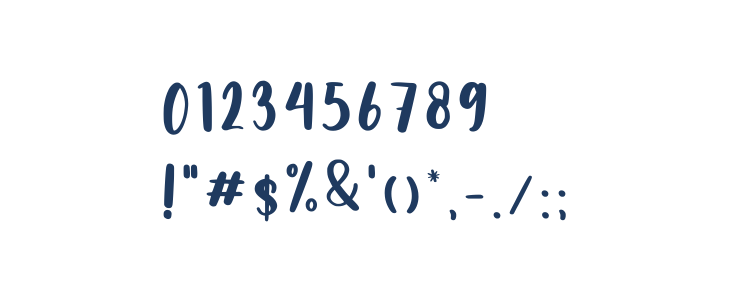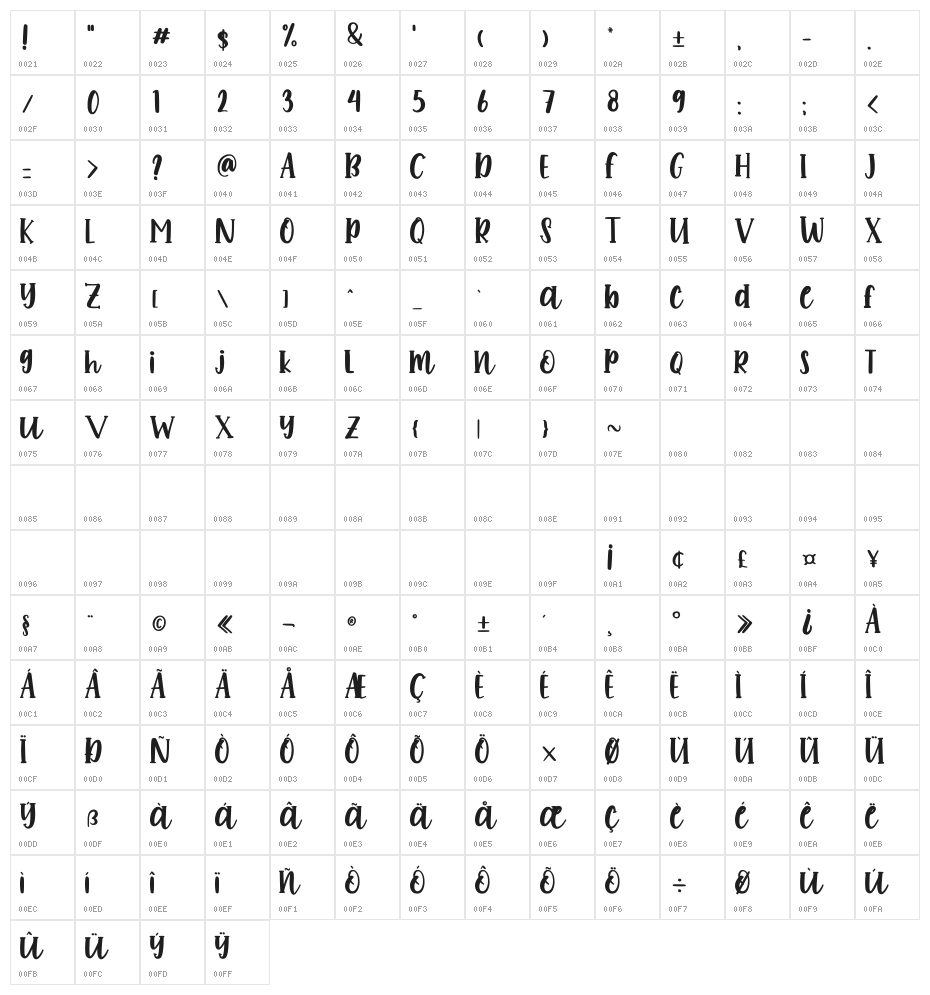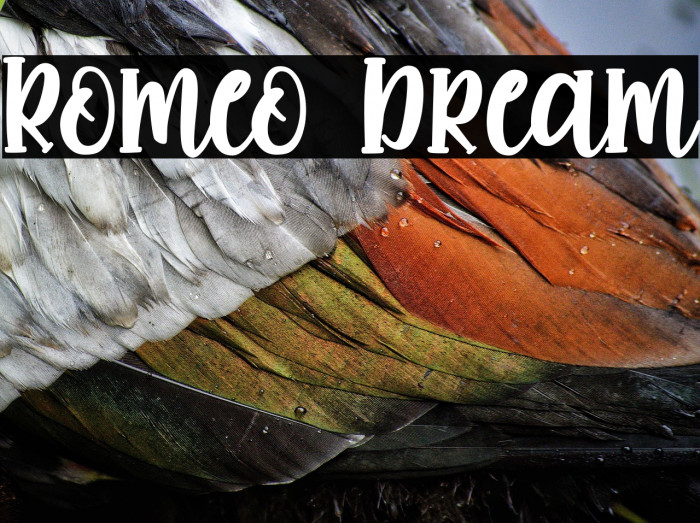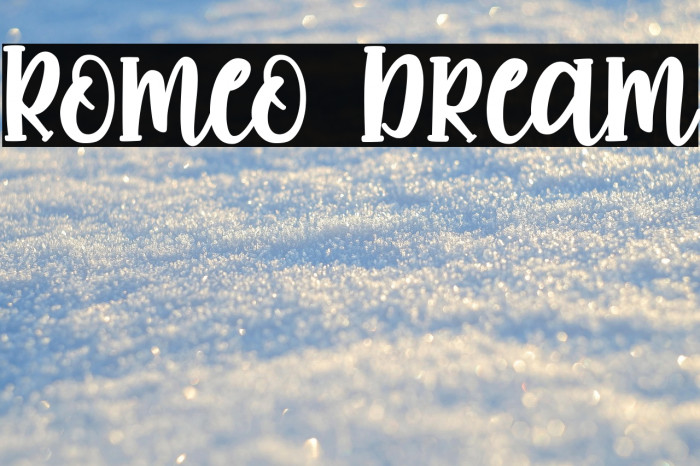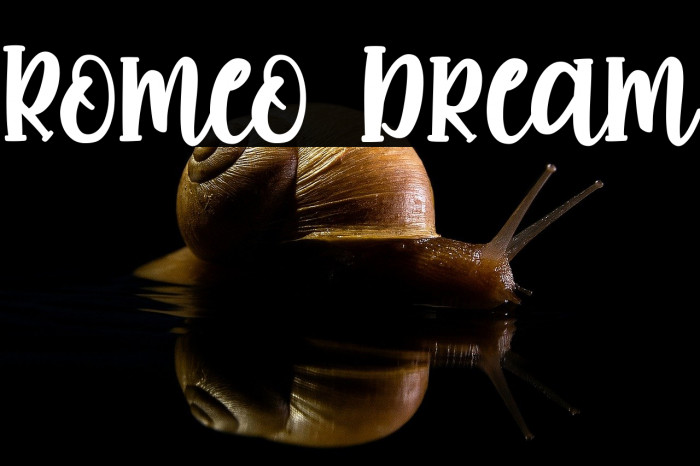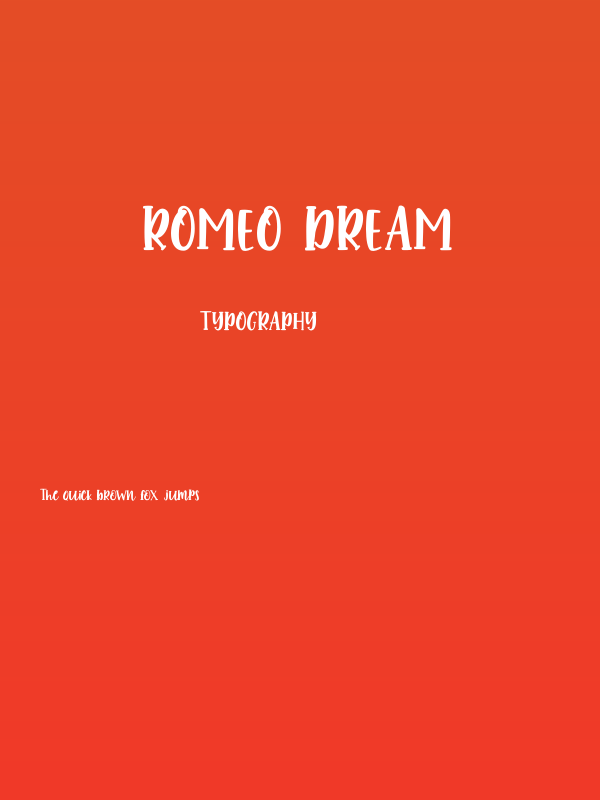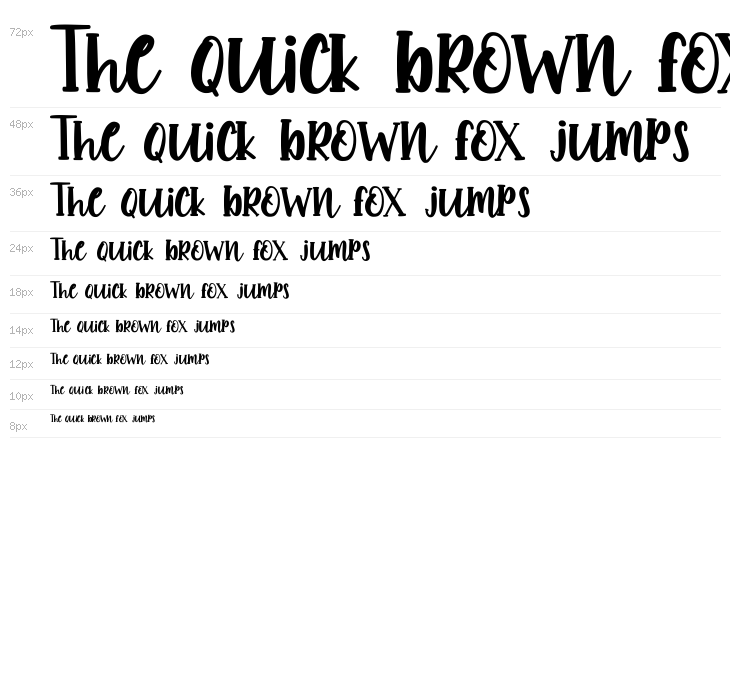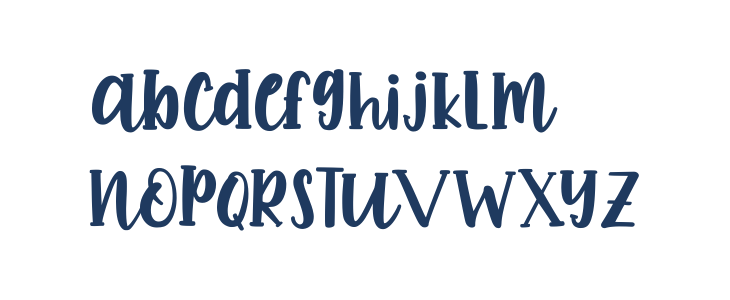
Romeo Dream Font
Romeo Dream Description
This font features a playful and bold script style with a handwritten feel. The characters are slightly slanted, giving a dynamic and lively appearance. The uppercase letters are tall and prominent, while the lowercase letters maintain a consistent flow with rounded edges. The numbers and special characters complement the overall style, maintaining the same boldness and playful curves. The font's strokes are thick, providing a strong visual impact, yet the rounded terminals soften the overall look, making it approachable and friendly. This font is versatile, suitable for creative projects that require a touch of personality and flair.
| Overall Style | Playful, Handwritten |
| Proposed Projects | Ideal for branding, invitations, greeting cards, and playful advertising campaigns. |